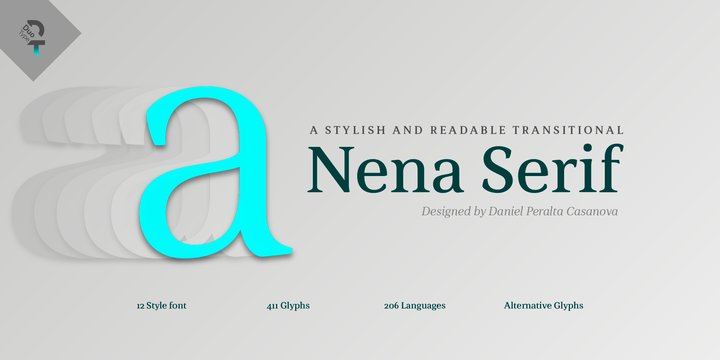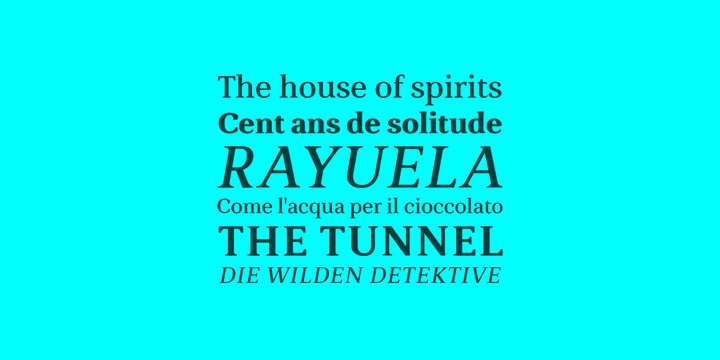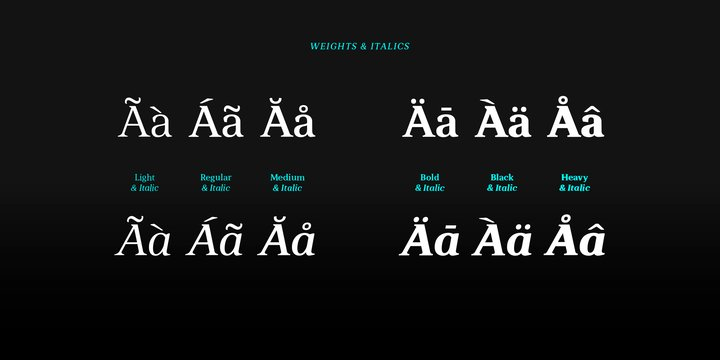
Nena Serif Font
Nena Serif FontNena Serif is a transitional readable typeface, with a contemporary style, designed for extensive reading in books, newspapers and magazines. The font is very legible when used in small body text, with medium x-height and moderate contrast it creates an elegant look on the page and is well suited for stylish headers and various on-screen uses.
The Nena Serif family is available in 6 weights, ranging from light to heavy, with matching italics and alternate glyphs. The font contains a character set of 411 characters supporting 206 different languages.